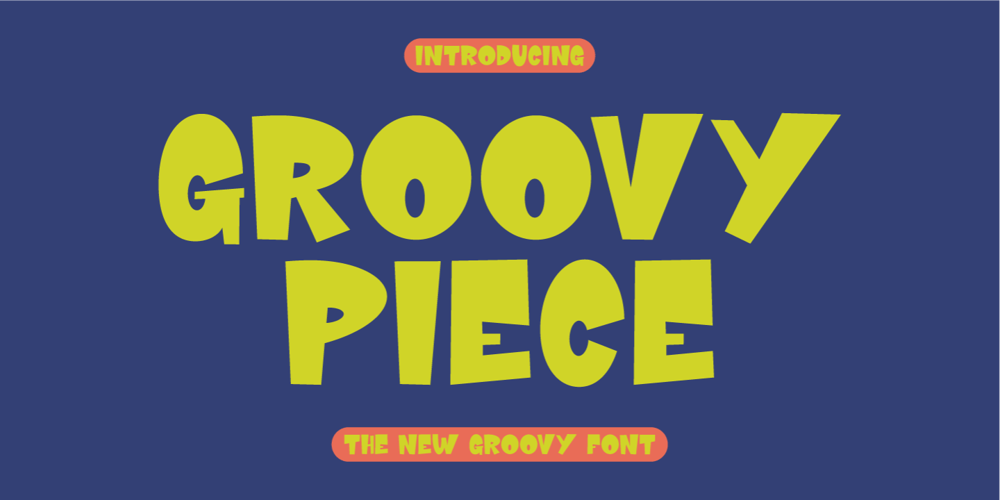
Groovy Piece
Groovy Piece font
Groovy Piece Font Family was designed by Ahmad Ginanjar Riyadi and published by Groovy Font. Groovy Piece contains 1 styles and family package options. Groovy Piece is a fun and stylish new font that exudes a groovy feel.Its characters are designed to be bouncy yet firm, giving the font a dynamic and energetic vibe. With clean lines and a hint of playfulness, this font is perfect for capturing a retro, fun-loving aesthetic.What’s you’ll get : – Uppercase, Lowercase, Numeral, Punctuation & Multilingual.For any questions please contact me 🙂Thank You !